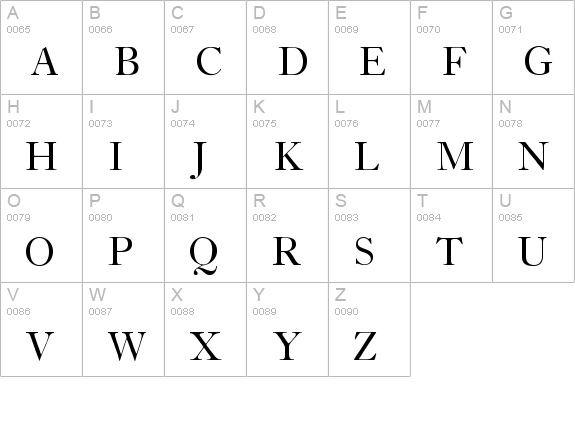
CaslonL Font Details
CaslonL is a classic and timeless serif font that exudes elegance and sophistication. With its graceful letterforms and delicate serifs, CaslonL is perfect for adding a touch of refinement to any design project. This versatile typeface is ideal for use in both print and digital applications, making it a valuable addition to any designer's toolkit. What sets CaslonL apart is its exceptional legibility and readability, making it a popular choice for body text in books, magazines, and other long-form content. The contrast between thick and thin strokes adds visual interest and ensures that each character stands out on the page. Best of all, CaslonL is available for free download at FontsMarket.com, allowing designers to access this high-quality font without breaking the bank. Whether you're working on a branding project, editorial layout, or website design, CaslonL is sure to elevate your work with its timeless charm and sophisticated flair.